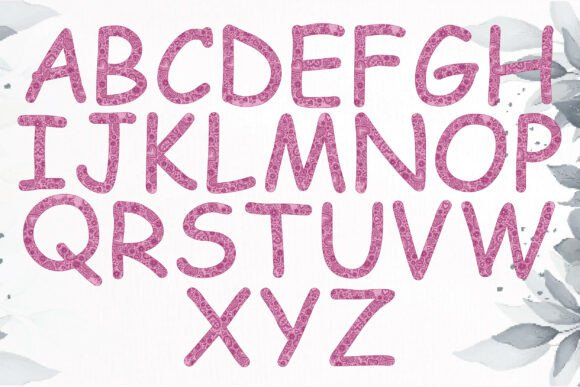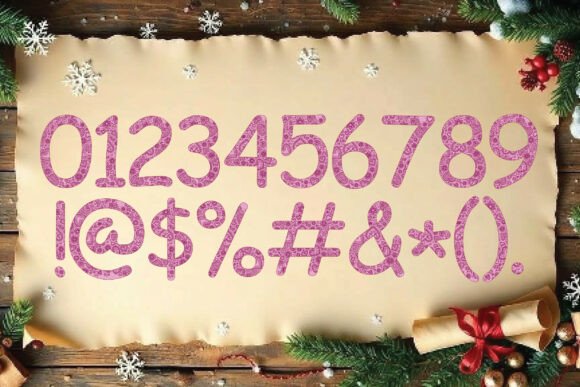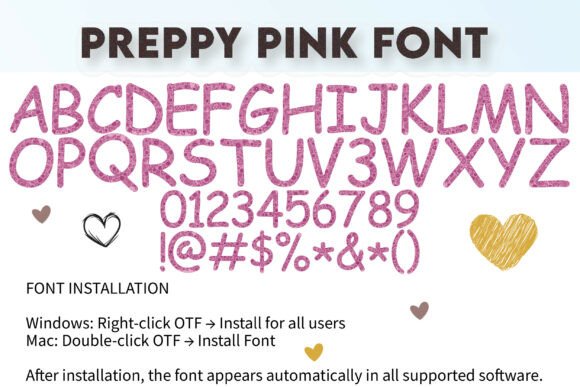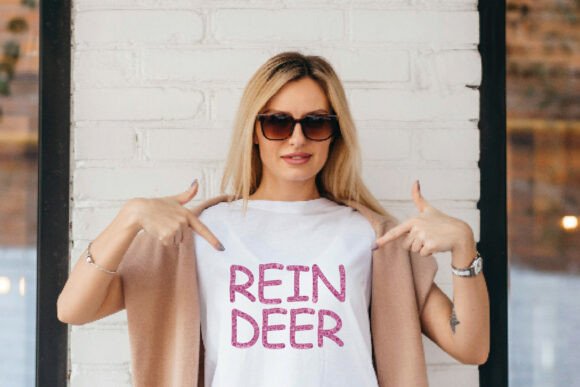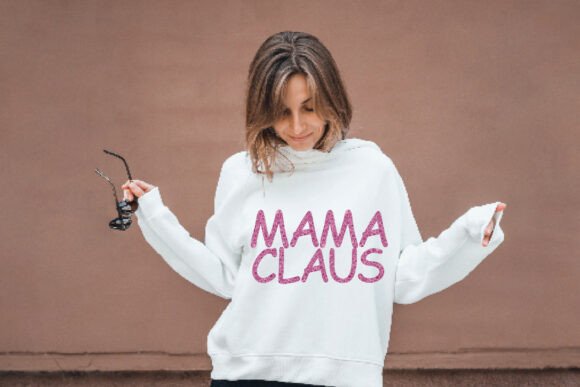
Introduction to Preppy Pink Font
Who hasn’t been there – staring at a blank canvas, struggling to find the perfect font to match the whimsical vibe of their creative project? The moment of truth has finally arrived, as we introduce the Preppy Pink Font, a delightful addition to your design arsenal. This charming font is perfect for adding a touch of romance and playfulness to your designs.
As a designer, you’re always on the lookout for high-quality resources that can elevate your work. The Preppy Pink Font is a valuable asset, offering a soft pink tone and stylish lettering that’s ideal for love-themed crafts, Valentine’s Day projects, and cute creative designs. Whether you’re working on a digital design, scrapbooking, or party decor, this font is sure to add a touch of elegance and charm.
Key Features of Preppy Pink Font
- Unique Preppy Pink Font style with a feminine touch, perfect for creative projects
- Designed with a preppy aesthetic, suitable for a variety of creative projects, including invitations, greeting cards, and more
- Includes a range of characters, including uppercase and lowercase letters, numbers, and punctuation marks
Honest Review: Preppy Pink Font
I recently stumbled upon the Preppy Pink Font and I have to say, it’s been a great addition to my design resources. The font has a playful, whimsical feel to it that’s perfect for creative projects, especially those that require a touch of femininity.
Here are some of the key features that I like about the Preppy Pink Font:
- Not ideal for formal or professional projects
- May not be suitable for designs that require a more serious tone
Overall, I’m impressed with the Preppy Pink Font. It’s a great design resource that’s perfect for designers who want to add a touch of whimsy to their creative projects. Just be mindful of its limitations and use it accordingly.
- PowerPoint/Word: Use the Preppy Pink Font in your presentations and documents to add a touch of elegance and sophistication.
To get the most out of the Preppy Pink Font, use it in combination with other design elements, such as graphics and textures. You can also experiment with different font sizes and colors to create a unique look.
The Preppy Pink Font is suitable for a wide range of creative projects, including:
- Baby shower invitations and decorations
- Wedding stationery and decorations
- Blog posts and social media graphics
Q: Is the Preppy Pink Font available in different styles or variations?
Yes, the Preppy Pink Font comes in a range of styles and variations, including bold, italic, and regular weights. You can also experiment with different font sizes, colors, and combinations to create unique and creative effects for your project.